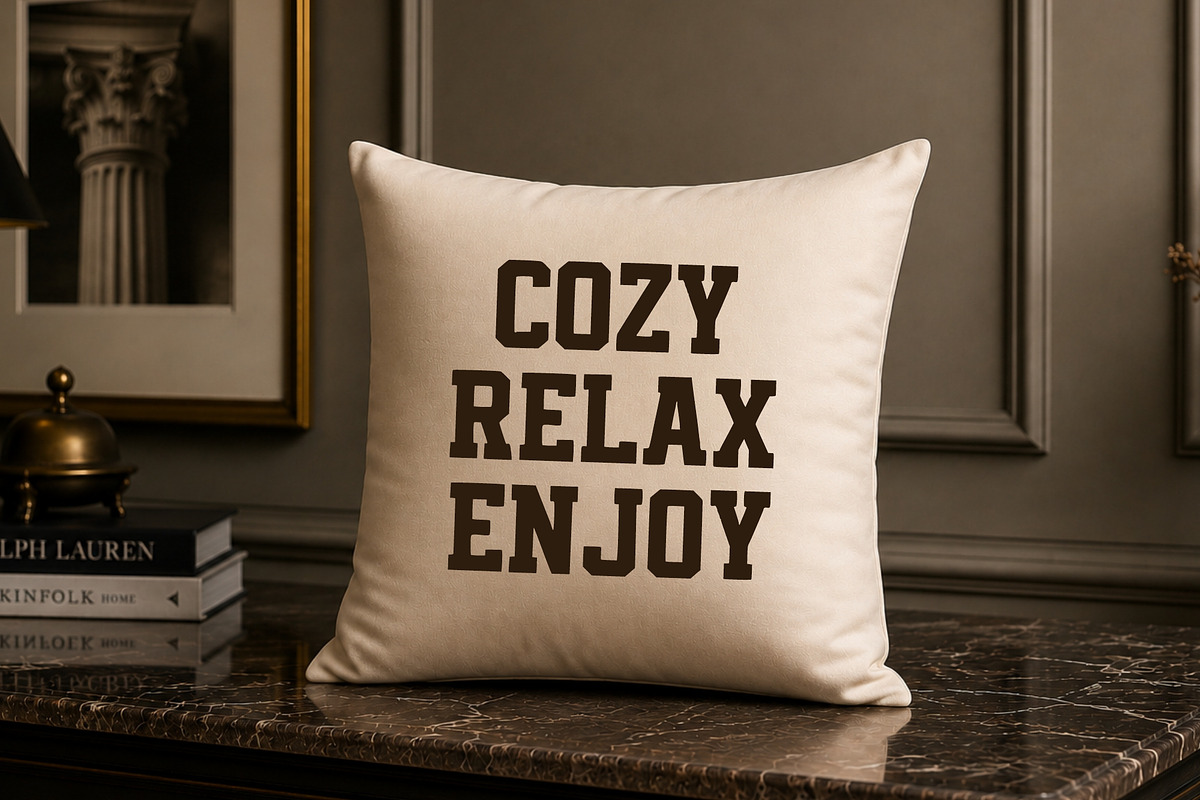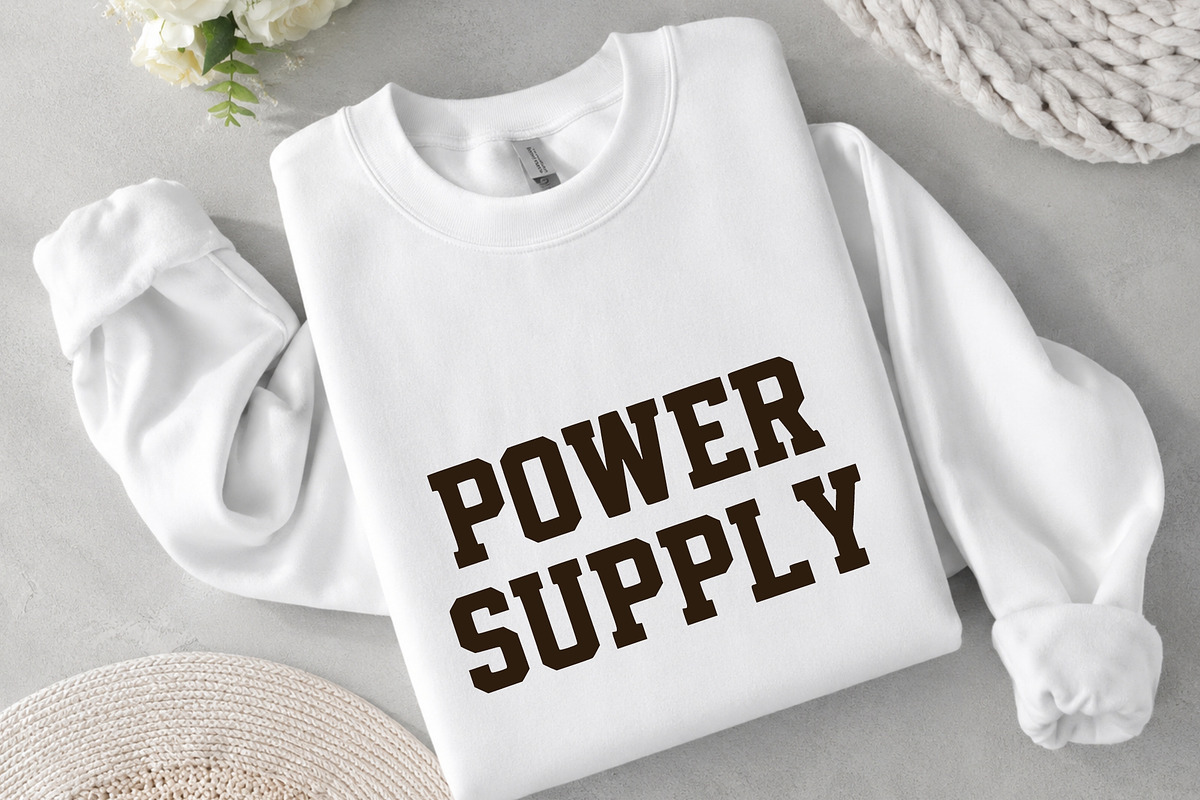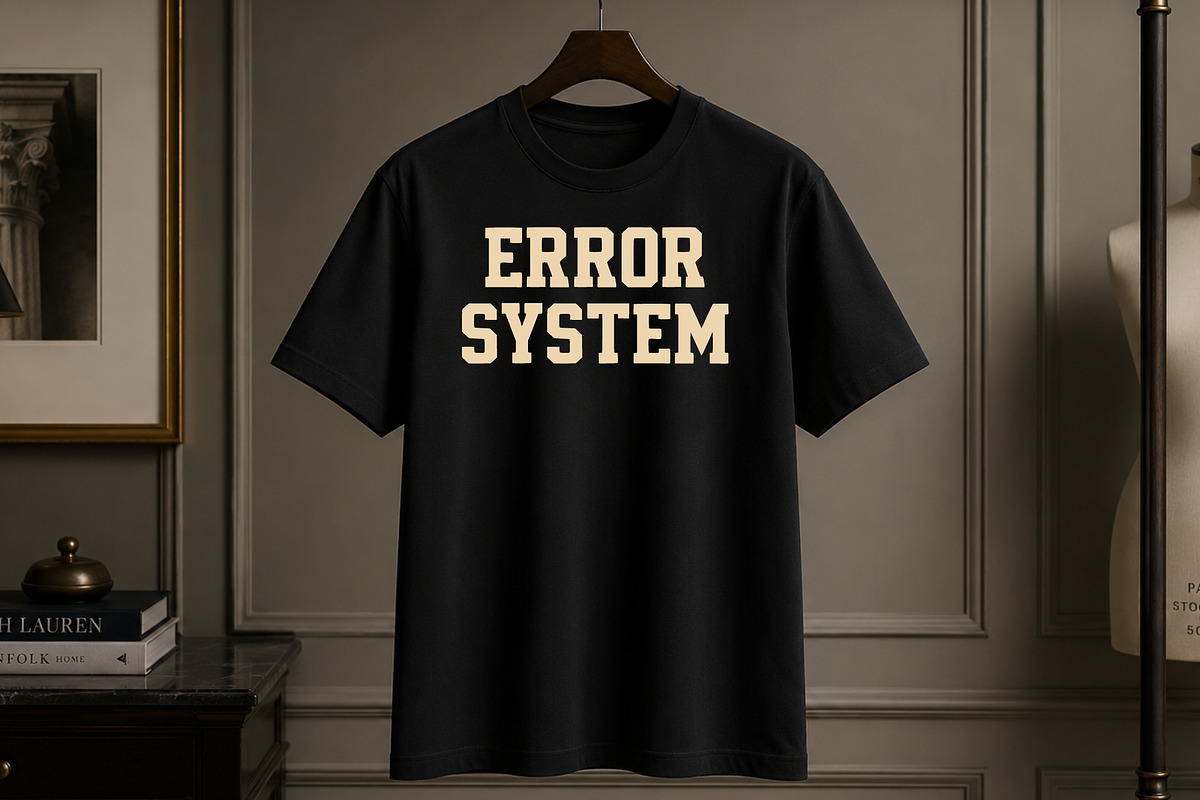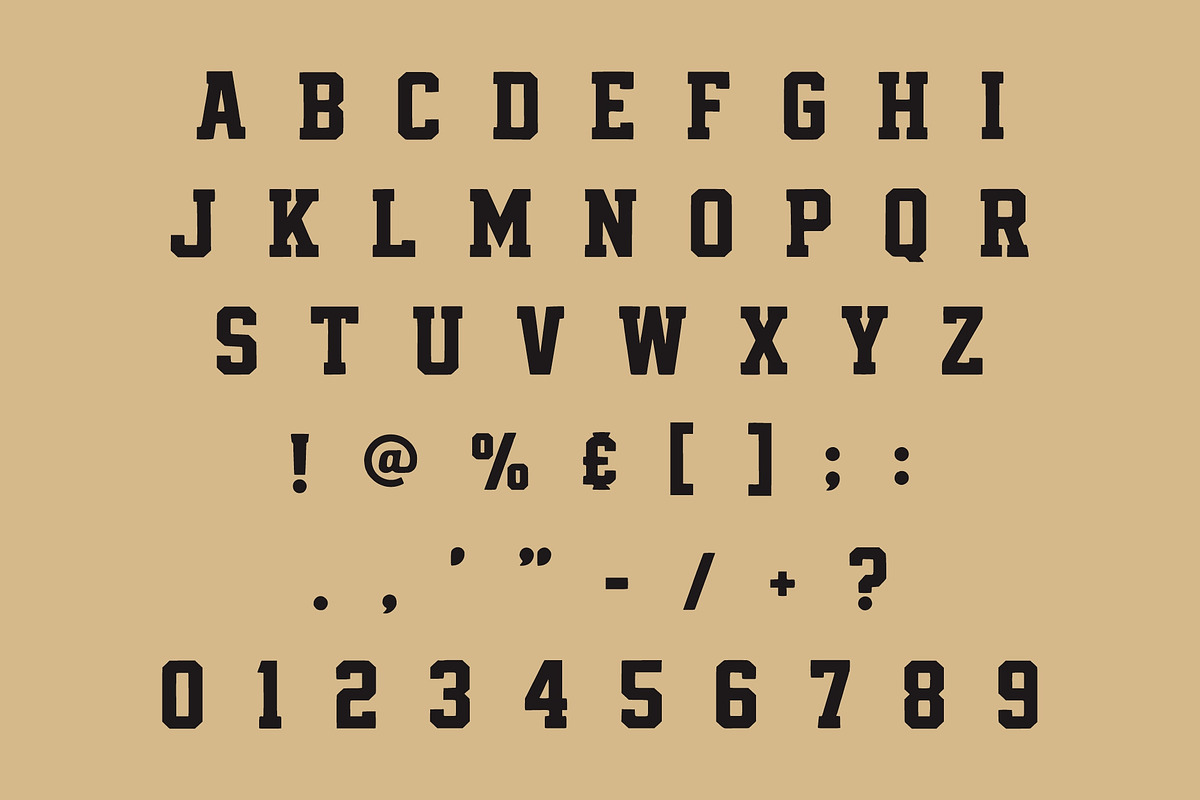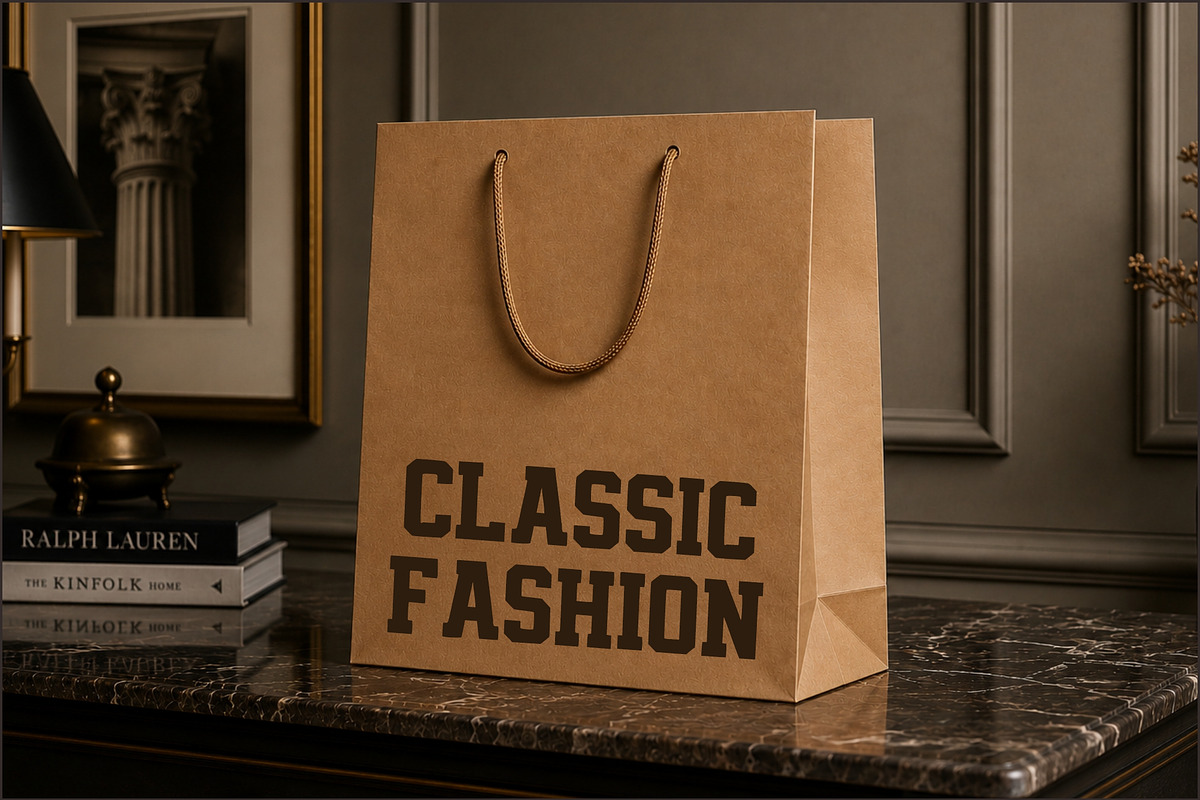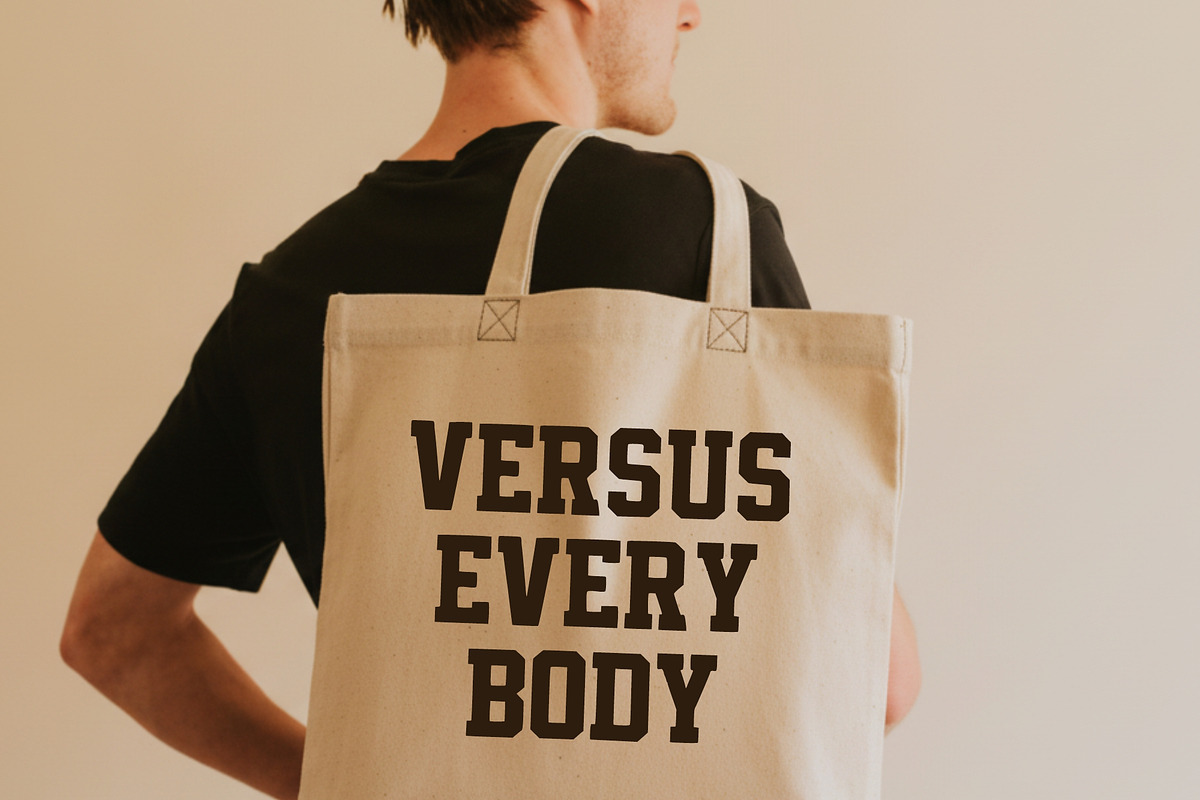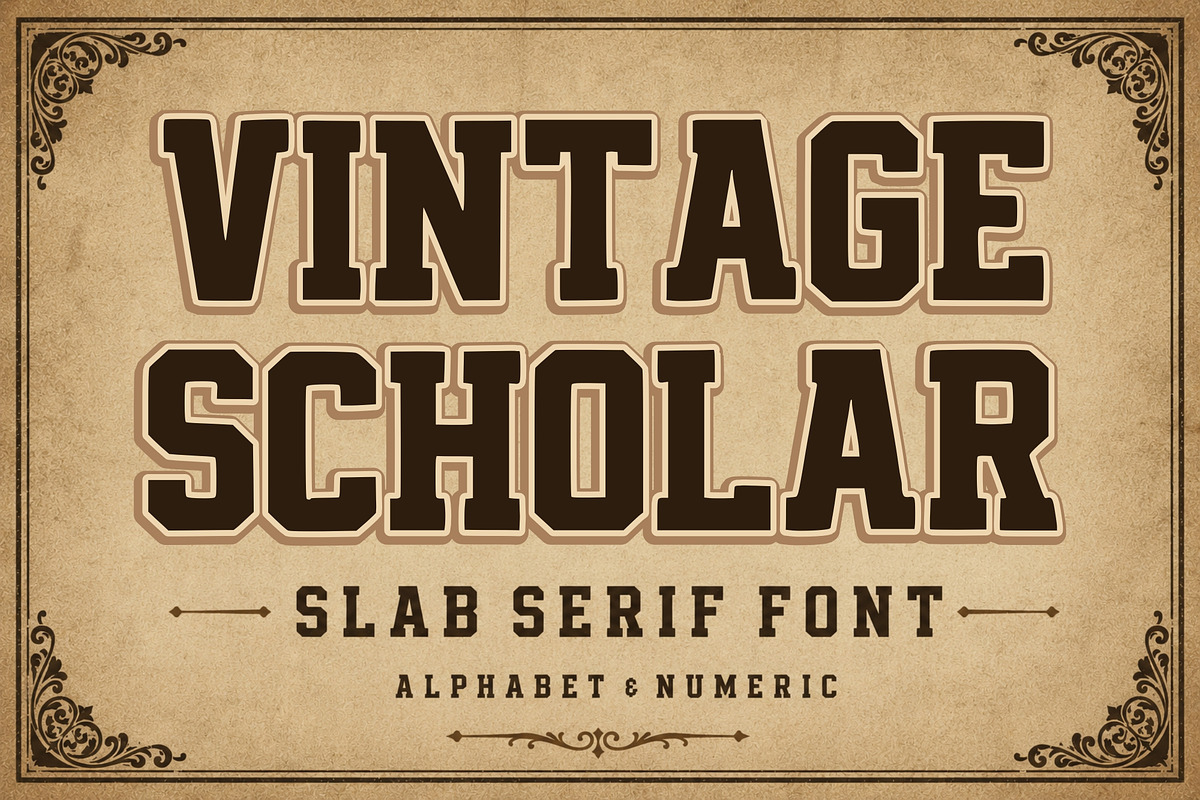
Vintage Scholar
Introducing Vintage Scholar, a powerful slab serif display font that captures the charm of vintage western typography and classic academic lettering. Designed with bold proportions, strong serifs, and authentic retro details, this typeface delivers a timeless look suitable for a wide range of creative projects.
Whether you're creating logos, posters, packaging, apparel, labels, book covers, or branding materials, Vintage Scholar provides a distinctive old-world character while maintaining excellent readability.
Vintage Branding
Western Posters
Whiskey Labels
Café & Restaurant Branding
Apparel Design
Editorial Headlines
Social Media Content
Retro Advertising